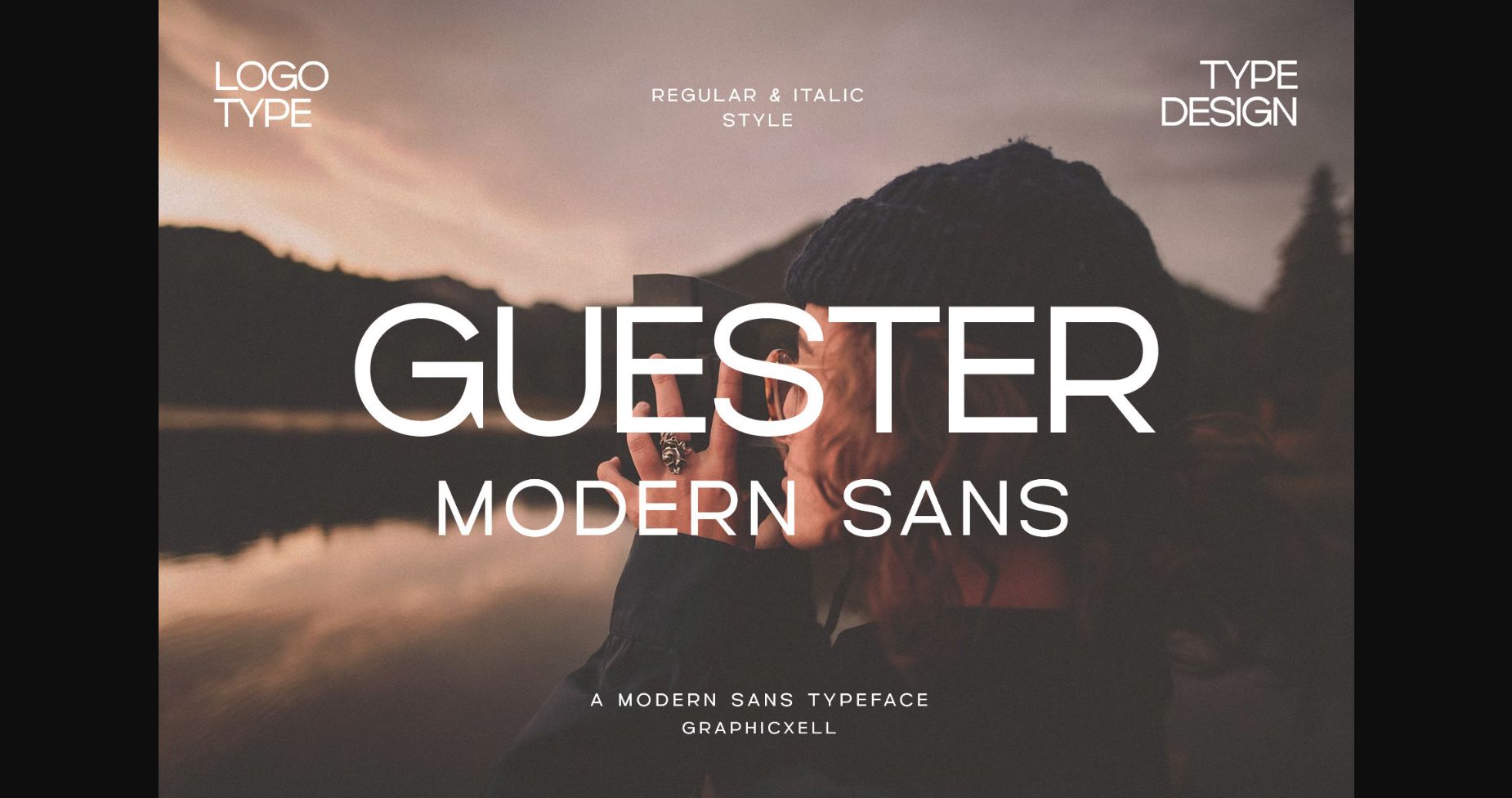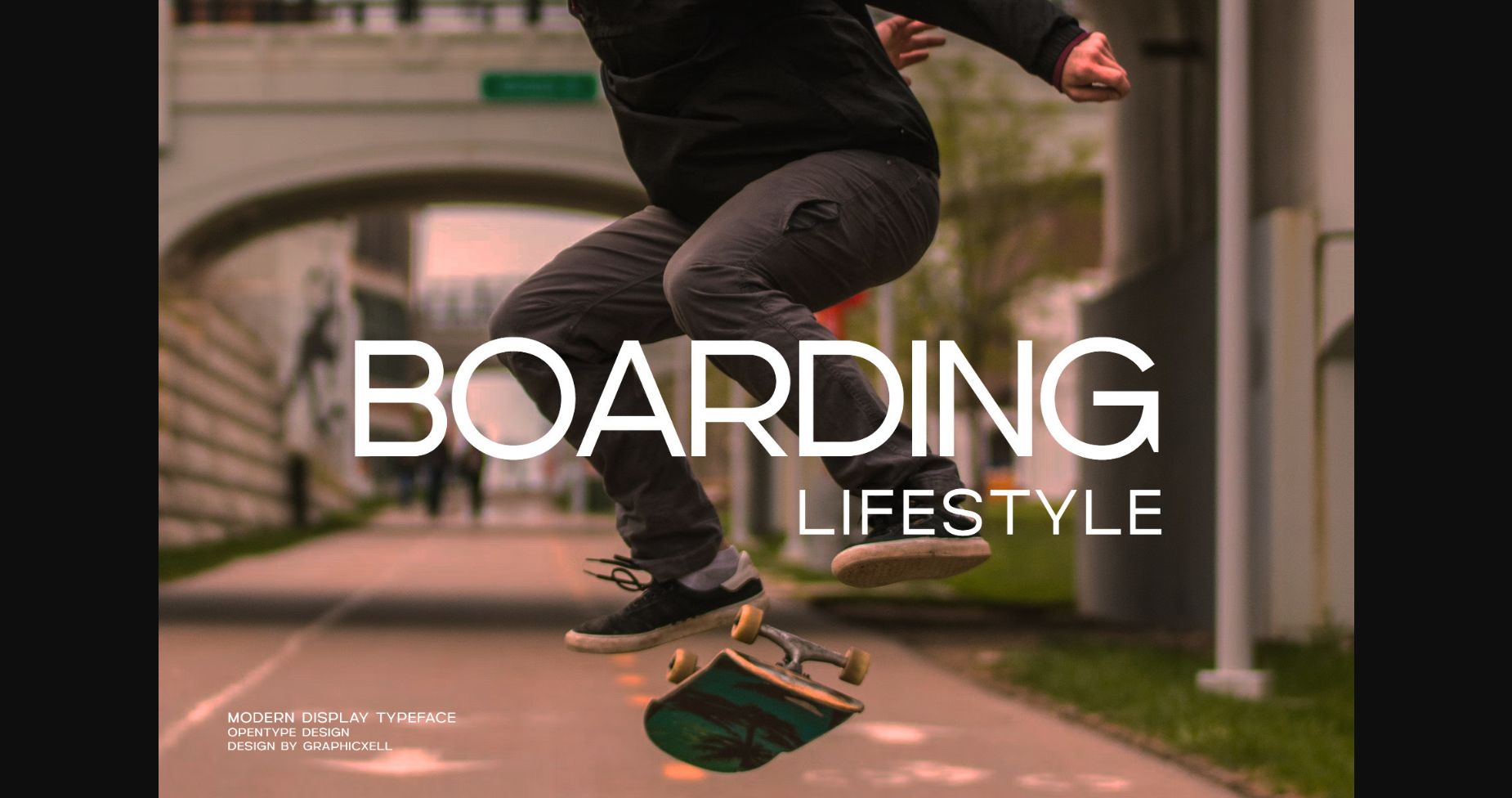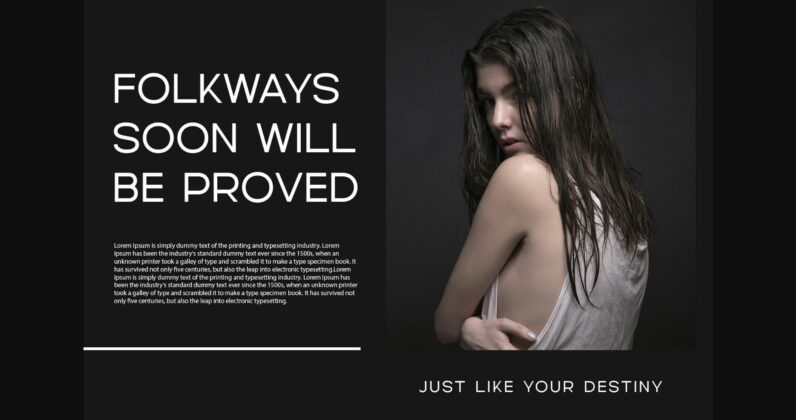
About Guester Font
Guester is a sans-serif font that is sleek and modern, with rounded edges and a balanced, even weight. It has a friendly, inviting feel, and works well for both body and headline text. Perfect for any project!